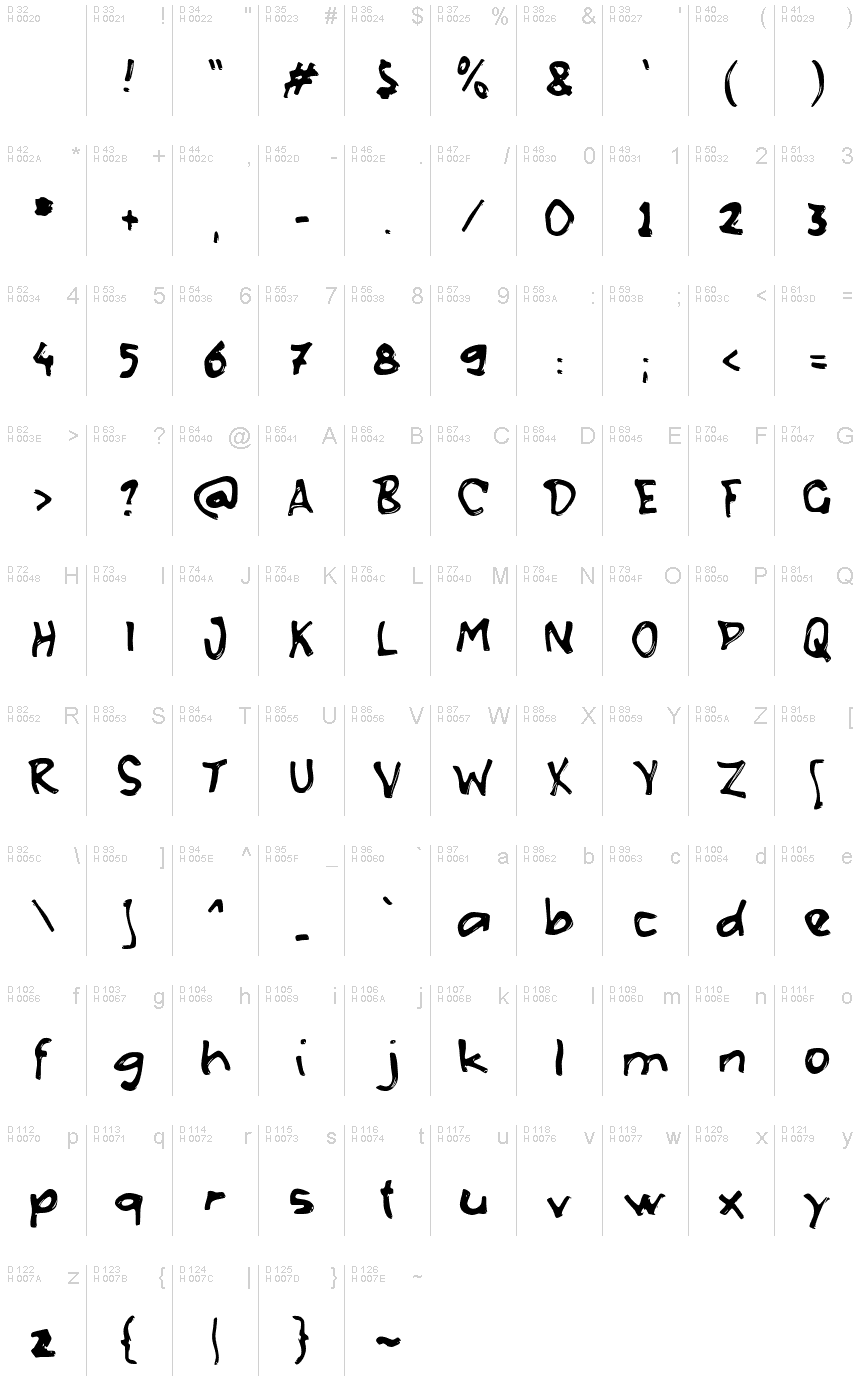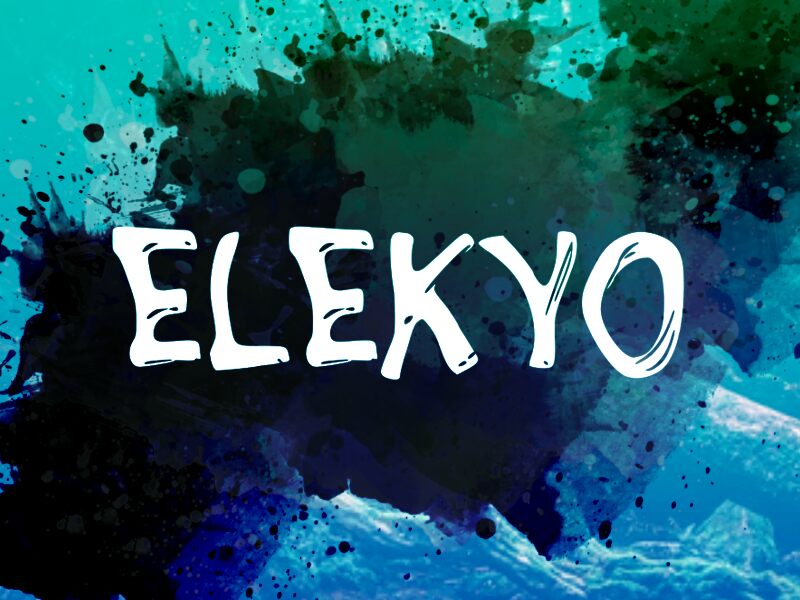
ELEKYO
Meet Elekyo, the vibrant and quirky display font designed by wep. With its playful and distorted style, Elekyo is perfect for injecting a dose of fun into a variety of creative projects.
Use this cartoon-inspired typeface to bring life to children's books, comic strips, and animated videos. Its unique design also makes it an excellent choice for eye-catching logos and branding materials that aim to stand out from the crowd.
Let Elekyo add a touch of whimsy and character to your next design venture!